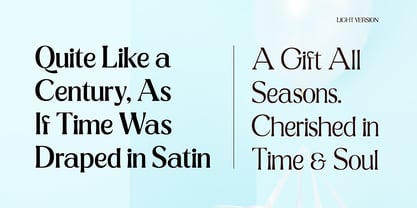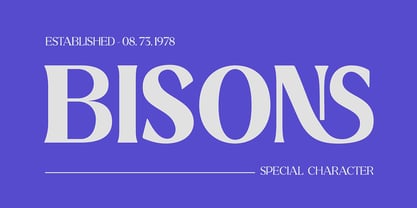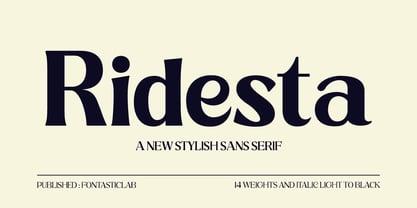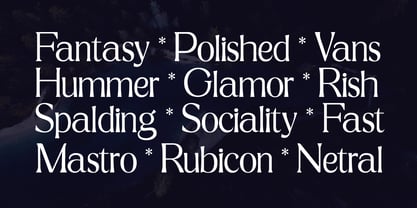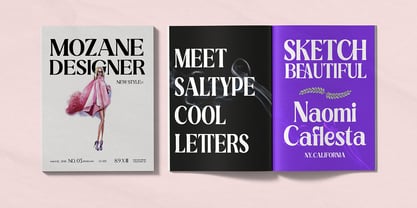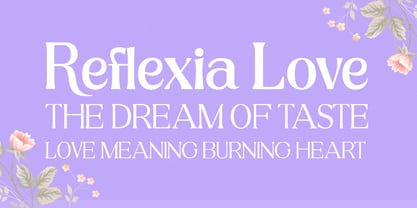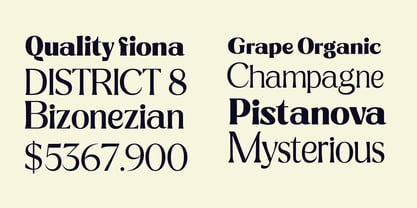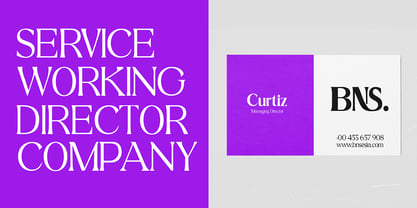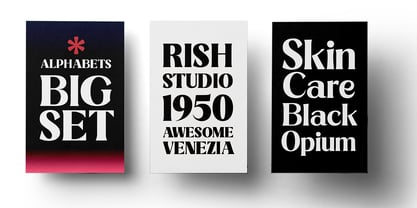
Ridesta
by Fontastic Lab
The Ridesta Font Family was designed by Bebby Lutfitharina and published by Fontastic Lab. Ridesta contains 14 styles and family package options. More about this family
Ridesta is a skillful and authentic sans serif font family. Featuring matched weights and italics, and fourteen full letters, working with the full latPro character set, each offers something different with its own dynamic weight and all made to work together harmoniously.
With a minimal design, low contrast, large x-height, and thin black weight (with additional ligature letters), Ridesta is perfect as a primary text and display font for branding, advertising, packaging, headlines, magazines, websites, logo design, and more.
Designers: Bebby Lutfitharina
Foundry: Fontastic Lab